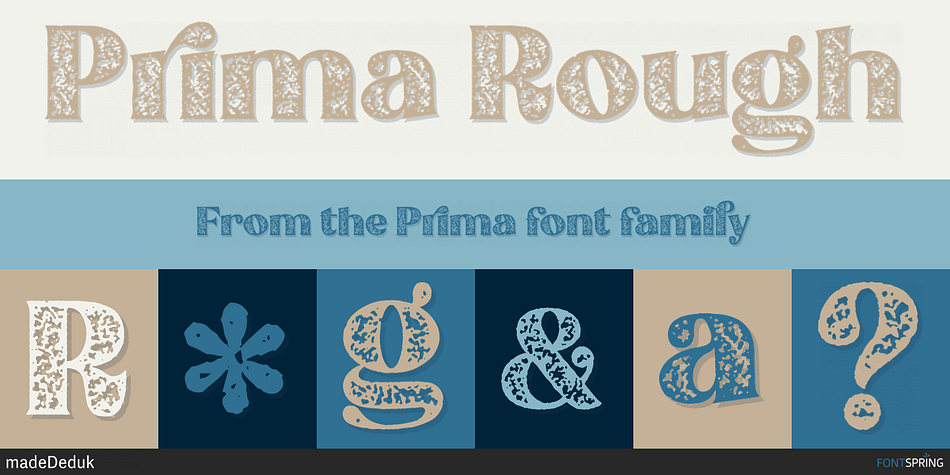
Prima Rough
Designed by Suandana Ipandemade, Prima is a display serif and serif font family. This typeface has two styles and was published by madeDeduk.
Prima is a luxury Typeface with contains ligatures and alternates each characters and comes with solid and rough version! A lot of stylish alternates characters will makes this font suitable for your any project design.
- UPPERCASE
- lowercase
- Alternative Uppercase
- Alternative lowercase